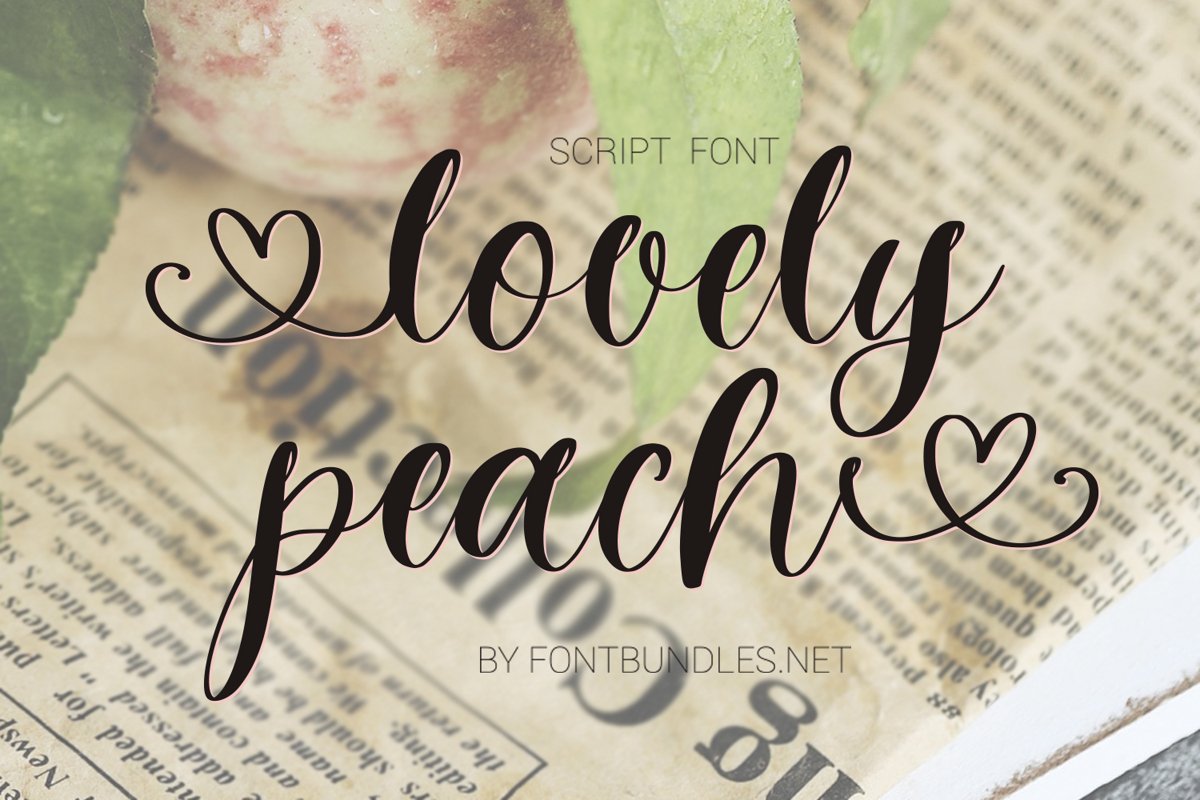
Lovely Peach Script Font - it's a new romantic script fontLovely Peach.otf - standart and alternate uppercase, lowercase, numbers, punctuation
LovelyPeach